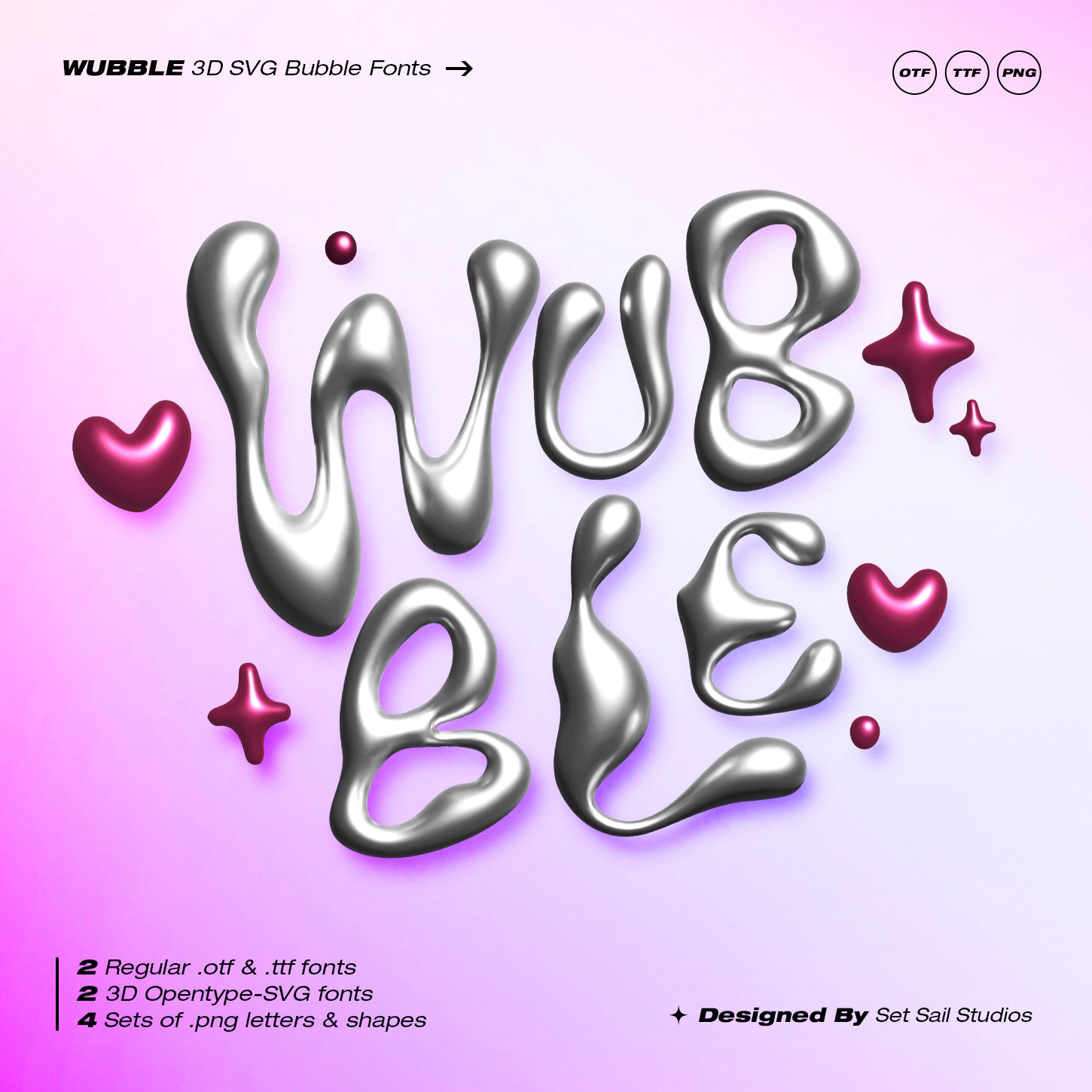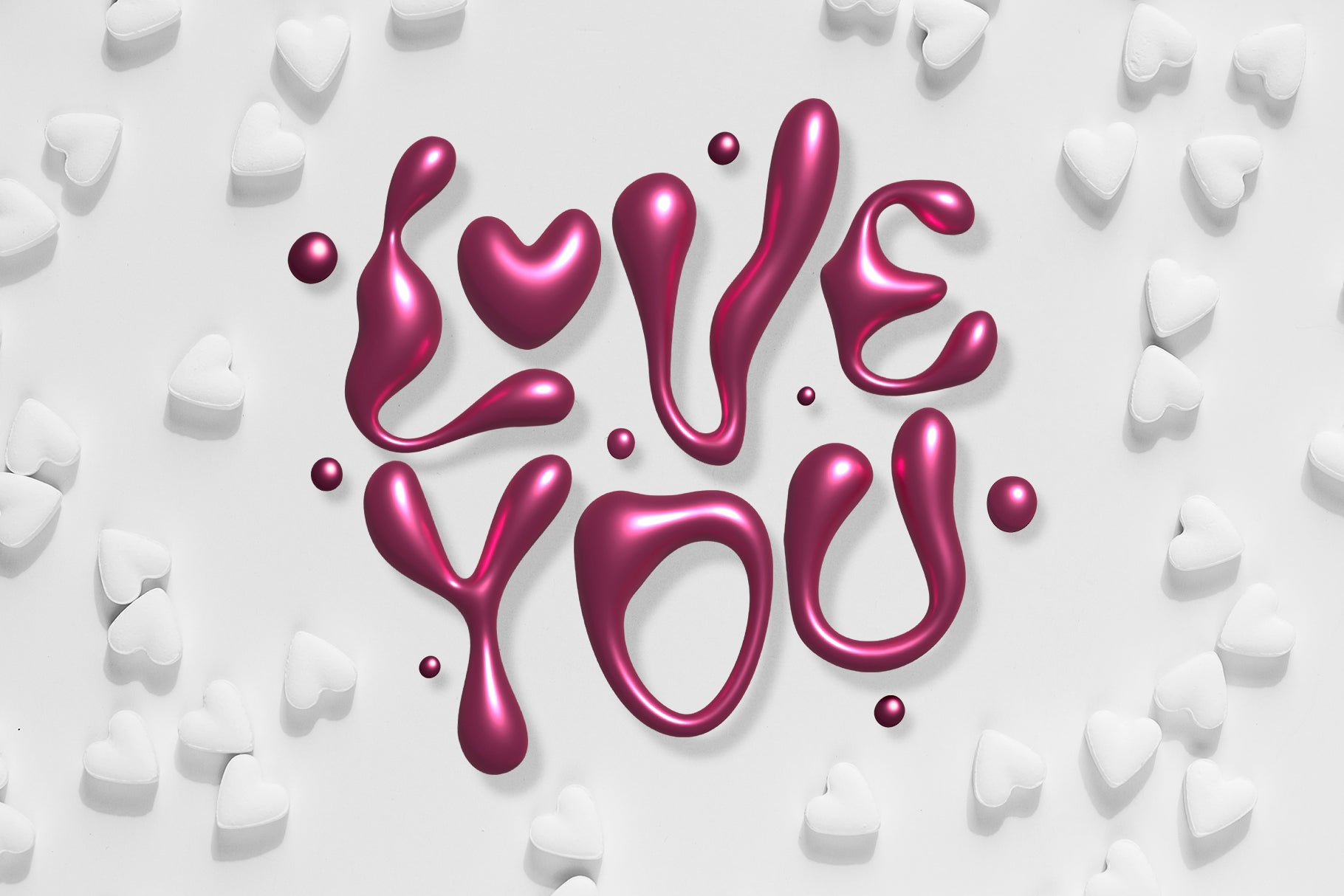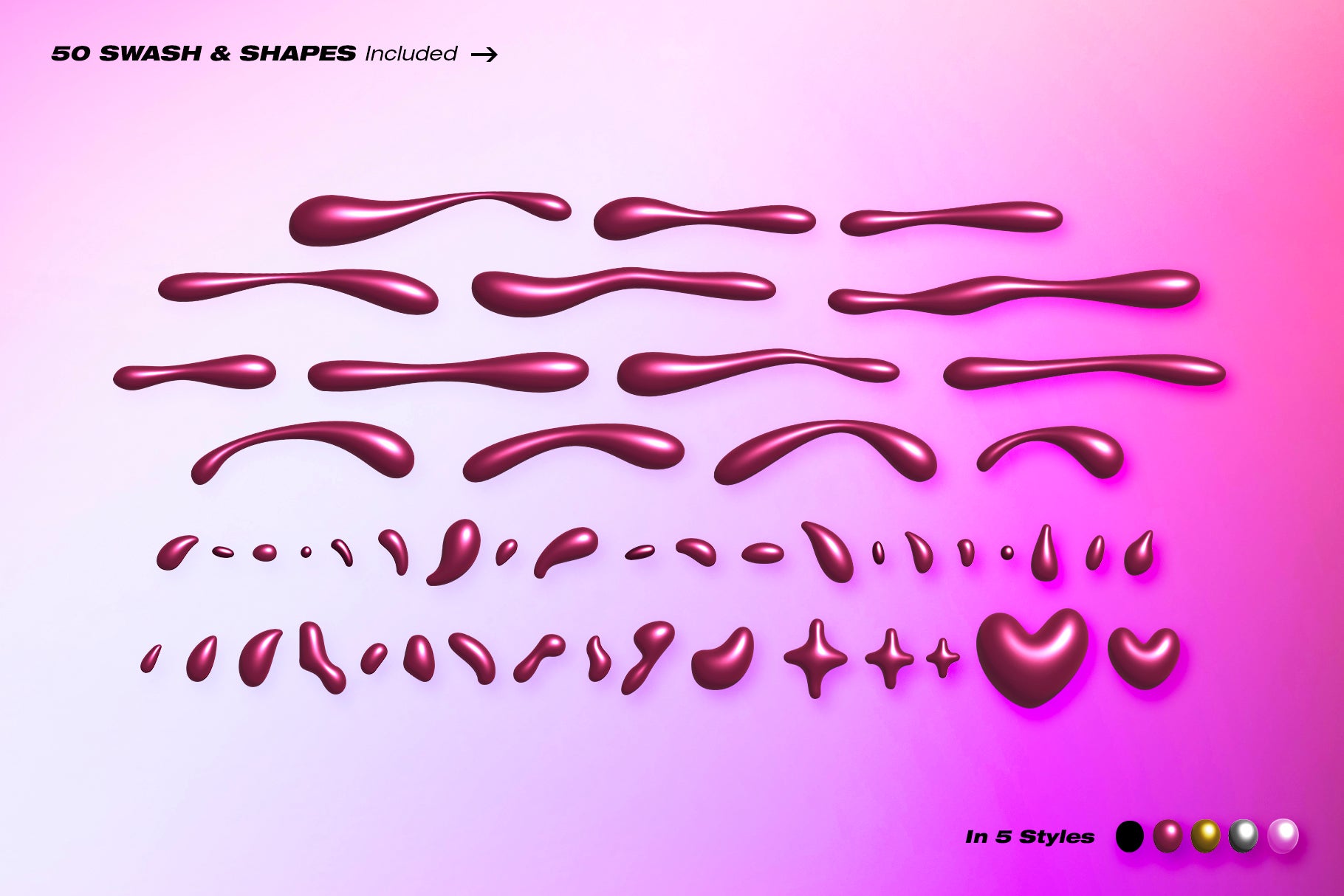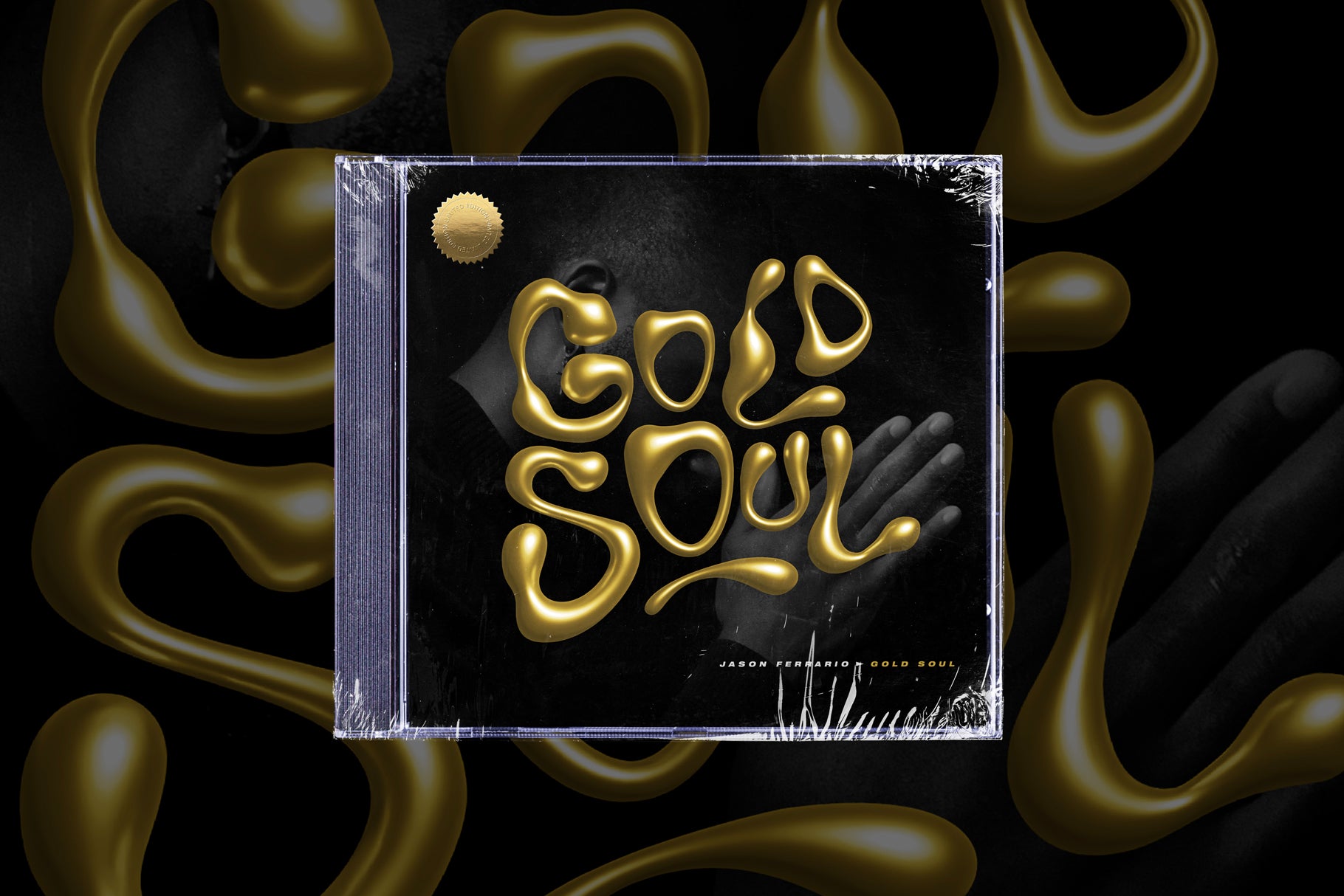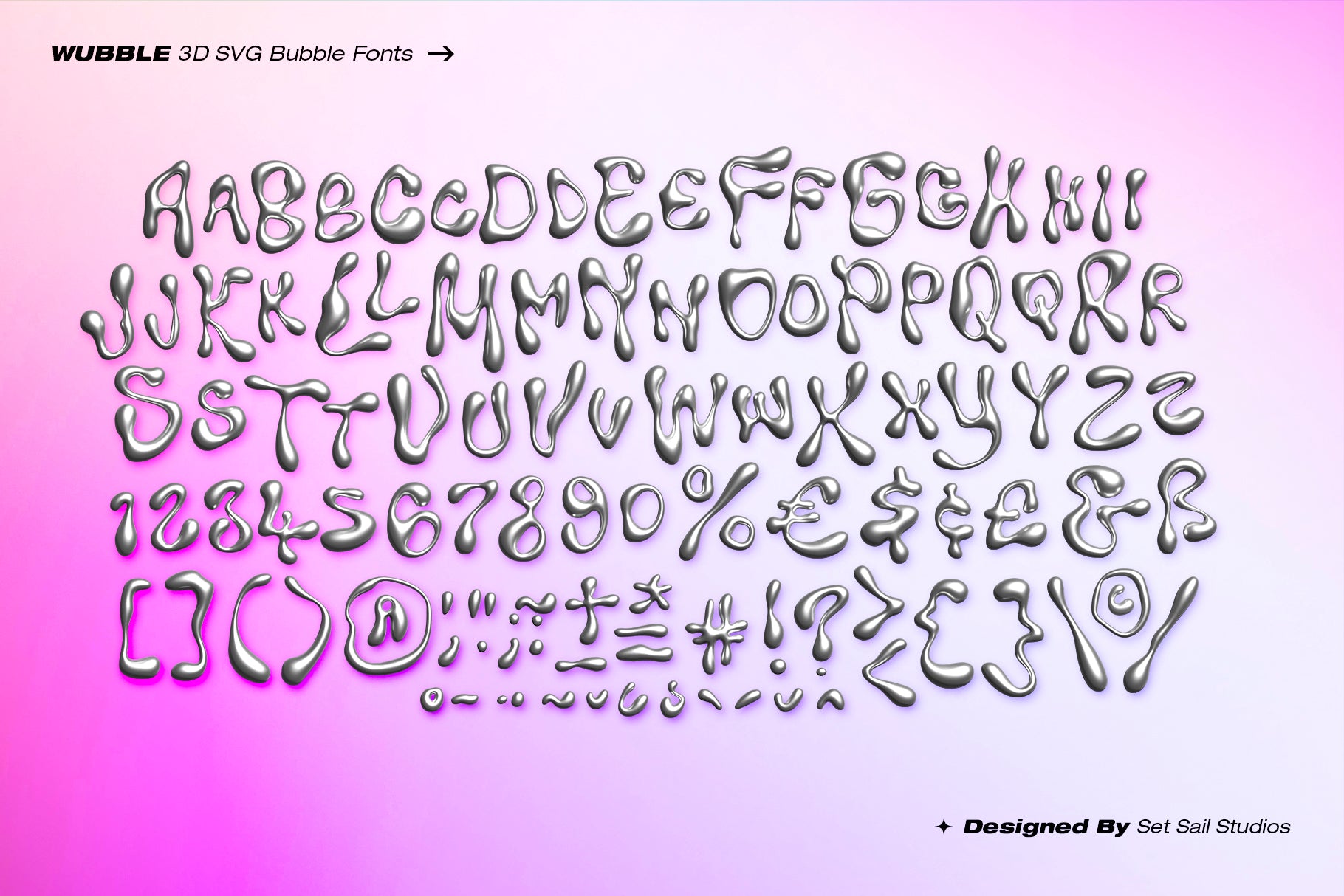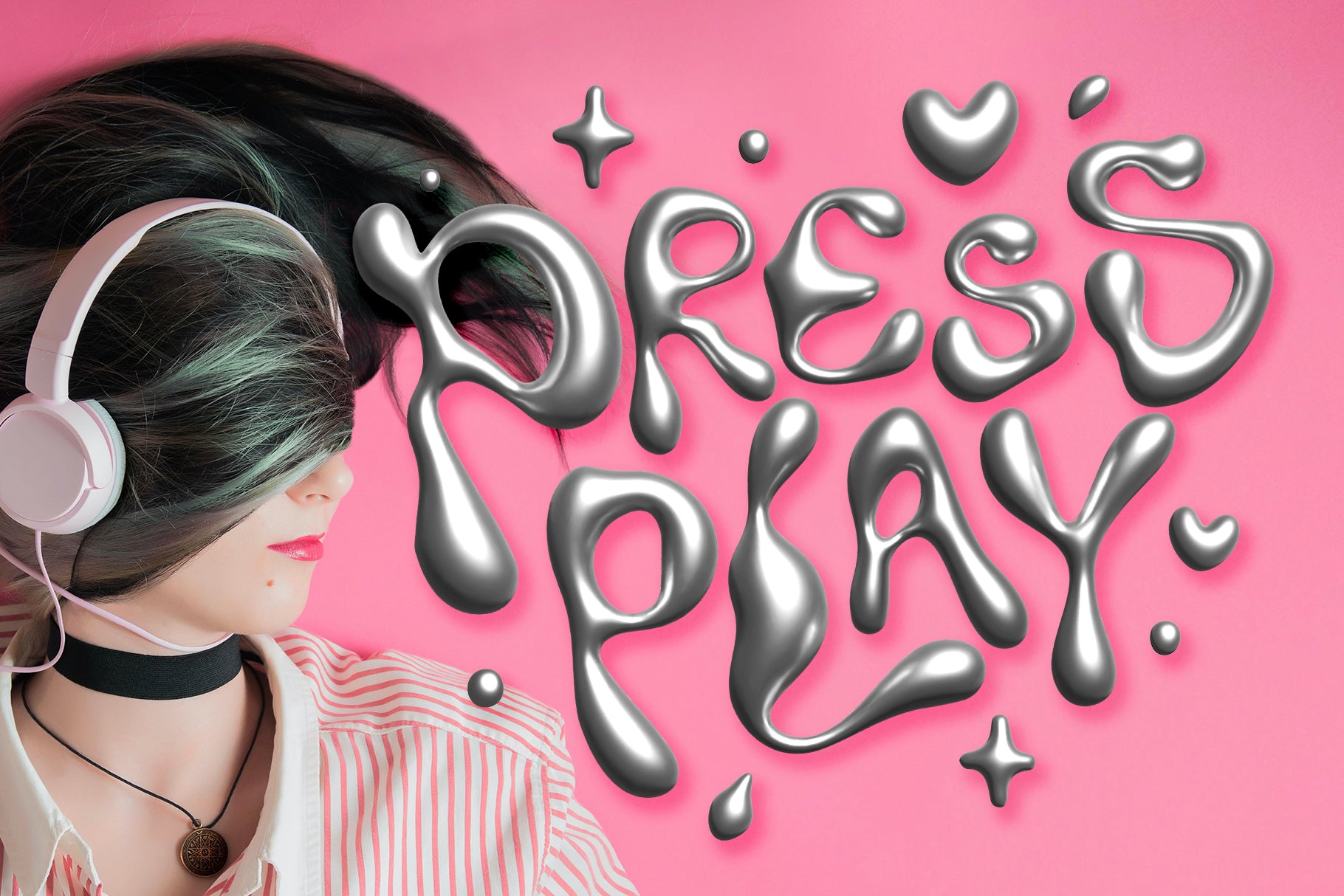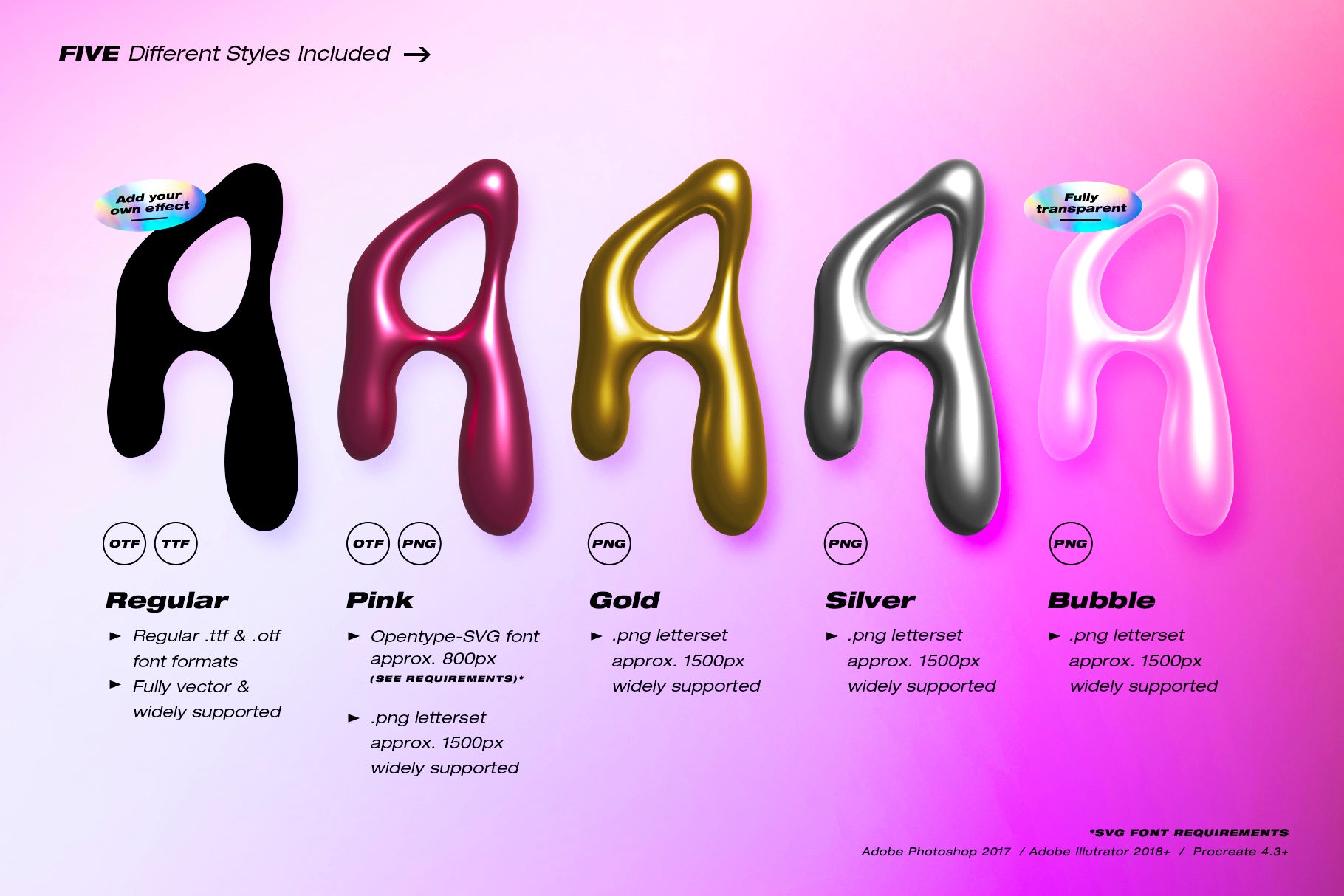
Wubble SVG Font & Letterset
The Wubble SVG Font & Letterset includes a comprehensive collection of upper and lowercase bubble characters, numerals, punctuation, and multilingual support, available as a type-able font and a .png letterset in five distinct styles. It features two regular fonts, two Opentype-SVG fonts with built-in 3D effects, and four image lettersets with transparent backgrounds, along with 50 swashes and shapes to complement the text.